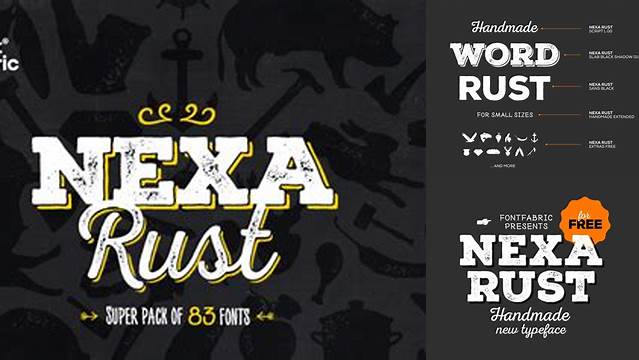
Nexa Rust Slab Font: Download & Design Guide
Free Font Nexa Rust Slab is a popular typeface known for its versatility and unique aesthetic. This article dives deep into everything you need to know about Nexa Rust Slab, from its design features and usage to where you can download it for free and how to best utilize it in your projects. Whether you're a graphic designer, web developer, or just someone looking for a cool new font, this guide is for you. We'll cover its history, explore its different styles, and give you tips on how to make the most of this fantastic font. Let's get started, folks!
Unveiling the Design and Features of Nexa Rust Slab
Hey guys, let's talk about what makes Free Font Nexa Rust Slab so special, shall we? This font isn't just another pretty face; it's got some serious design chops. The first thing you'll notice is its robust and slightly rugged appearance. The slab serifs, those little rectangular extensions at the ends of the letter strokes, give it a strong, bold presence. It's a font that demands attention, which makes it a great choice for headlines, titles, and anything else you want to pop. Now, the beauty of Nexa Rust Slab lies in its versatility. It's not just one font; it's a whole family. You've got different weights, from light and airy to heavy and imposing. This means you can use it for various purposes, from body text to eye-catching logos. Think about it: a lighter weight for a more subtle feel, and a heavier weight for a statement. The design also incorporates some subtle imperfections, giving it a vintage or handcrafted feel. This adds character and helps it stand out from the more polished, clean-cut fonts. This can be a great asset if you're looking to give your project a touch of authenticity. In addition to its visual appeal, Free Font Nexa Rust Slab is also highly legible. Despite its bold design, the letters are well-formed and easy to read, even at smaller sizes. This is a crucial aspect for any font, especially when used for body text. It's no good having a super cool font if nobody can read it, right? So, with Nexa Rust Slab, you get the best of both worlds: style and readability. Moreover, the font includes a wide range of characters, including numbers, punctuation marks, and special characters. This ensures that you have everything you need to create comprehensive designs. So, whether you're designing a website, a poster, or a business card, Free Font Nexa Rust Slab has got you covered. So basically, Nexa Rust Slab is a versatile, stylish, and highly functional font that is perfect for many design projects. Its bold appearance, combined with its readability and extensive character set, makes it a go-to choice for designers worldwide. Overall, Free Font Nexa Rust Slab isn't just a font; it's a design tool. It's a statement. It's a way to make your work stand out. And honestly, who doesn't want that?
Diving into the History and Origins of Nexa Rust Slab
Alright, let's take a little trip back in time and uncover the history of Free Font Nexa Rust Slab. Where did this awesome font come from, and what's its story? This font is part of the Nexa family, which was created by the Serbian type foundry, Fontfabric. The Nexa family itself is known for its geometric sans-serif design. The Rust part comes from the added textures and imperfections, giving it that weathered, industrial feel. The slab serifs are a later addition, which makes the font even more distinctive. The story behind Nexa Rust Slab is all about innovation and the desire to create something unique. Fontfabric wanted to push the boundaries of typography and come up with a font that was both functional and visually interesting. They definitely succeeded, in my opinion. This font was designed with versatility in mind. The creators wanted a font that could be used for various purposes, from headlines to body text, and everything in between. They also wanted something that would fit well with different design styles, from modern and minimalist to vintage and rustic. Free Font Nexa Rust Slab became a hit, and it's still popular today. It's a testament to the designers' vision and the quality of the font itself. The success of Nexa Rust Slab is a great example of how a well-designed font can capture people's attention and leave a lasting impression. The font's popularity also sparked the creation of other variants and styles, expanding the Nexa family even further. Now, the font has been around for a while. It’s not a newbie on the block, and it's managed to stay relevant and popular even as design trends change. The creators of this font knew what they were doing when they designed it. They considered the importance of visual appeal and legibility. They also took into account the versatility of the font so that it could be used in various projects. The font is a great example of how a design can be effective and meet different design needs. So, to sum it all up, the history of Free Font Nexa Rust Slab is a story of creativity, innovation, and a clear understanding of what makes a great font. Fontfabric did an amazing job, and it’s clear they’re still doing a great job today!
Exploring the Different Styles and Weights of Nexa Rust Slab
Okay, let's get into the nitty-gritty of the Free Font Nexa Rust Slab and all its different styles and weights. As I mentioned earlier, this isn't just one single font; it's a whole family. This is super cool because it gives you a lot of flexibility and control over how you use it. First off, you've got the different weights. These range from super light to extra bold. The light weights are great for subtle text, like small headlines or body text in a layout. Then, as you move up the scale, you get into the heavier weights, which are perfect for making a bold statement. Think of big headlines, logos, and anything you want to stand out. Then there's the style. Free Font Nexa Rust Slab comes with different styles that will add extra spice to your project. You can get versions that are slightly distressed, giving them that vintage or industrial feel. These styles will work well if you're going for a retro or worn-out aesthetic. This added layer of texture makes the font even more unique and visually interesting. Now, the beauty of having all these different styles and weights is that you can mix and match them. You can use a light weight for body text and then use a bold weight for your headlines. Or you can use a distressed style for some elements and a cleaner style for others. The possibilities are endless, and that's the fun part! It's all about finding the right balance and creating a look that fits your project. So, when you're working with Free Font Nexa Rust Slab, take some time to play around with the different styles and weights. See what works best for you. Experiment! This font is designed to give you as much freedom as possible. You can try mixing different weights and styles to create a sense of depth and visual interest. Another tip, consider the overall tone of your project. If you're going for something modern and clean, stick to the lighter weights and cleaner styles. If you want something more vintage or rustic, use the distressed styles and bolder weights. It's all about finding the right fit. Moreover, the font supports a wide range of characters. This allows you to design comprehensive layouts. From numbers to special characters. Free Font Nexa Rust Slab allows you to do a lot. So yeah, the variety of styles and weights in Free Font Nexa Rust Slab is one of its greatest strengths. It gives you the freedom to create a variety of designs. It's all about making this font work for you, right?
Best Practices for Using Nexa Rust Slab in Your Designs
Alright, so you've got Free Font Nexa Rust Slab, and you're ready to use it. But how do you make sure you're using it right? Here are some best practices to keep in mind. First off, remember the golden rule: know your audience. Consider who you're trying to reach and what message you're trying to convey. The bold, rugged style of Nexa Rust Slab is great for some projects, but it might not be the best choice for others. For example, it's perfect for a brand that wants to project strength, industrial, or even a vintage feel. But maybe not the best for a children's book. Next up, think about contrast. Make sure there is enough contrast between the font and the background. This is crucial for readability. If you're using Free Font Nexa Rust Slab on a dark background, make sure the font is light. Conversely, if you're using it on a light background, make the font dark. You don't want your text to blend into the background and become unreadable. Experiment with font sizes. Depending on the use case, you'll need to adjust the font size. If you are using it for a header, you may want to use a larger size so it stands out. For body text, you'll likely need a smaller font size to ensure readability. And that is just the tip of the iceberg. Consider pairing Free Font Nexa Rust Slab with other fonts. While this font is super versatile, it might not always be the best choice for everything. Pairing it with a complementary font can create a more balanced and visually appealing design. For example, you could use Nexa Rust Slab for headlines and a clean sans-serif font for body text. This will create a nice contrast and make your design easier to read. Now, let's talk about spacing. Make sure there is enough spacing between the letters, words, and lines of text. This is essential for readability. It will make your design easier to read. Additionally, pay attention to the kerning. Kerning is the space between individual letters. Sometimes, letters don't automatically look spaced correctly, and you might need to manually adjust the kerning. This is particularly important for headlines and other prominent text. And don't be afraid to experiment. Try different styles, weights, and sizes to see what looks best. Free Font Nexa Rust Slab is a versatile font, and there are many ways to use it. Play around with it and see what works for your project. Always prioritize readability. No matter how cool a font looks, if people can't read it, it's not doing its job. So, keep the font size appropriate, ensure good contrast, and use proper spacing. In conclusion, with the right approach, you can unlock the full potential of Free Font Nexa Rust Slab. Make sure it fits your project needs and use it to its fullest. With practice, you can use it effectively.